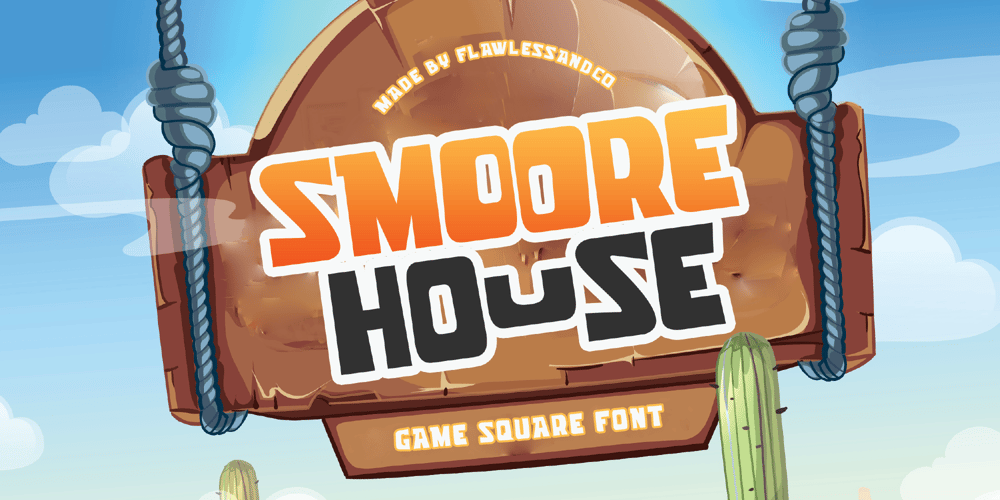
Smoore House Font Family was designed by Achmad Yani and published by Flawlessandco. Smoore House contains 1 styles and family package options. Smoore House – Game Font, Fun Font, Playful Font, Dialogue Font, Square Font, Display Font, Modern Font, Logo Font, Branding Font, Canva Font, Cricut Font, Cursive Font, Procreate FontIntroducing “Smoore House” a game square font. Enter the pixelated realm of gaming with “Smoore House,” a bold and dynamic square font designed to elevate your gaming experience to new heights. With its sharp edges and futuristic vibe, Smoore House brings a touch of excitement and energy to every gaming interface.Keywords: Game FontThere’s some connected letters and some alternates that suitable for any graphic designs such as branding materials, t-shirt, print, business cards, logo, poster, t-shirt, photography, quotes .etcThis font support for some multilingual. Also contains uppercase A-Z and lowercase a-z, alternate character, numbers 0-9, and some punctuation.If you need help, just write me! Thanks so much for checking out my shop!